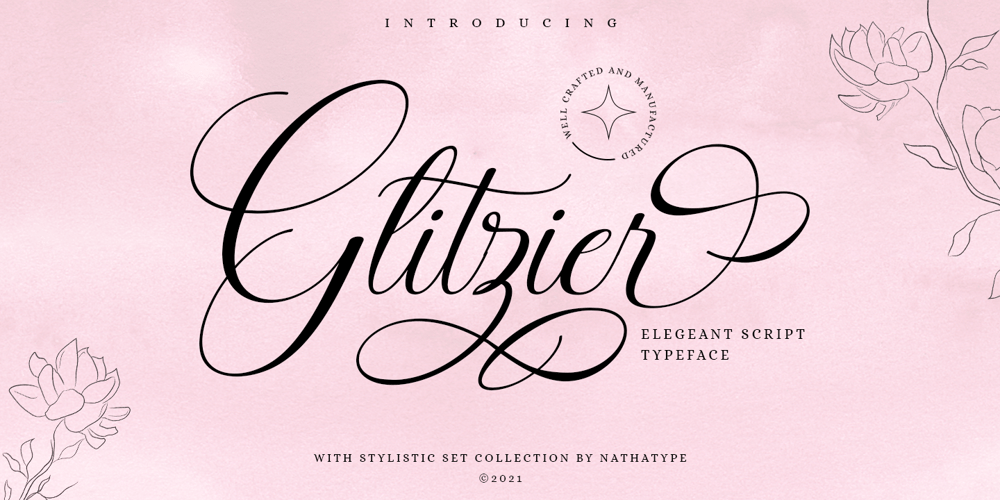
Glitzier Font Family was designed by Donis Miftahudin and published by Nathatype. Glitzier contains 1 styles and family package options. Get ready to transcend to a world of magic, laughter, and butterflies. Your branding will spark delight and engage everyone who sees it! Glitzier-A Calligraphy FontA beautifully handcrafted calligraphy font that’ll make your guests sing and elevate your projects! Every swash, stroke, and curve was created to entice happiness and elegance. The ideal font for social media banners; posts, and ads, printed quotes, t-shirt designs, packaging, or even as a modern text overlay to any background image. Our font always includes Multilingual Support to make your branding reach a global audience.Features: Swashes Ligatures Stylistic Set PUA Encoded Numerals and Punctuation Thank you for downloading from Natha Studio